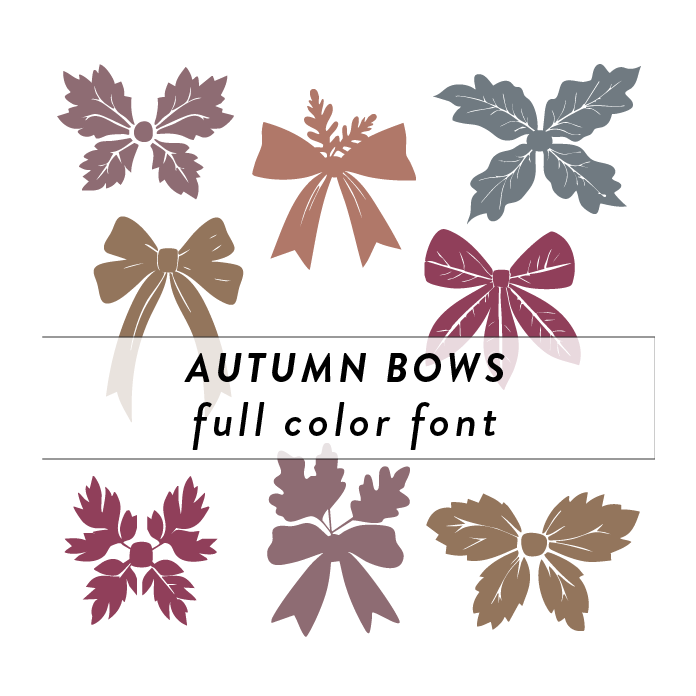
Autumn Bows Full Color Font features a whimsical and festive design, perfect for Thanksgiving and autumn-themed projects. This unique font showcases colorful bows and intricate details, adding a touch of charm to any design. Perfect for invitations, greeting cards, and seasonal decor. This font is a OTF craft font that will appear in color only when used with the silhouette software.